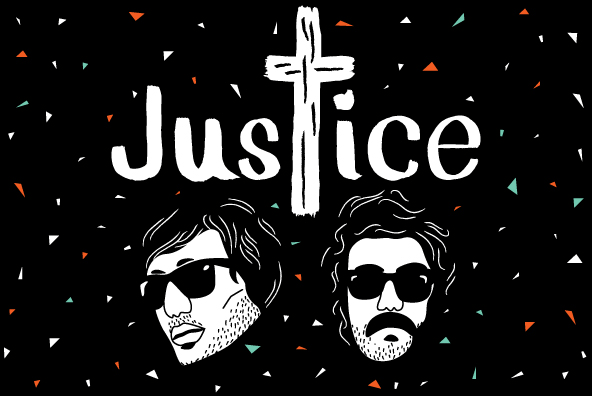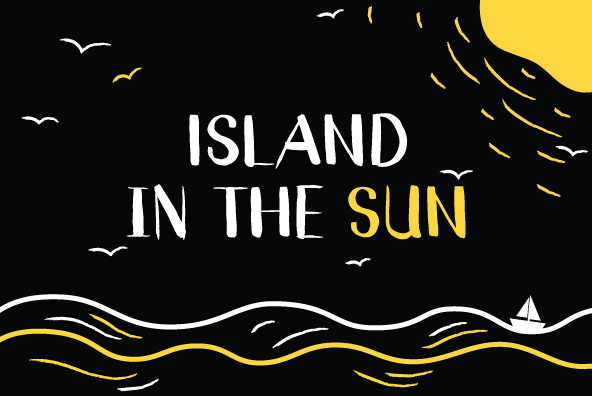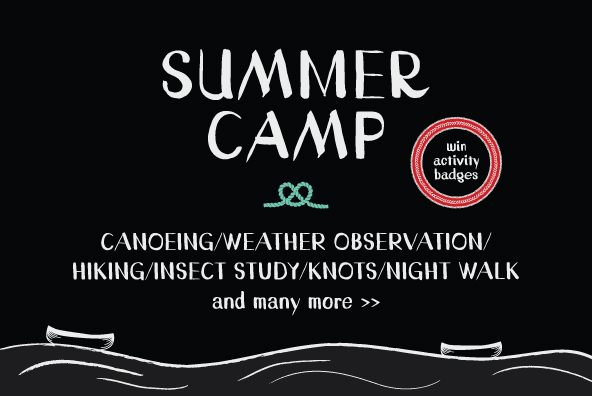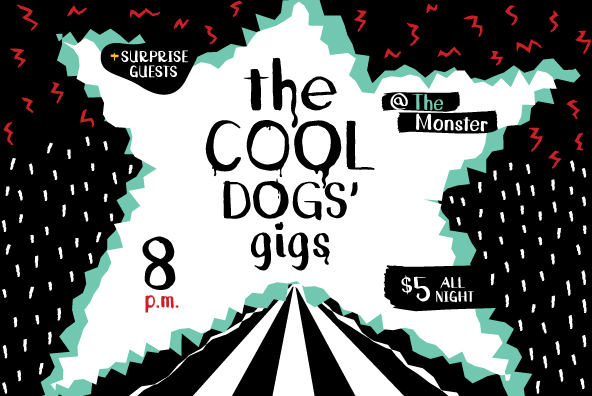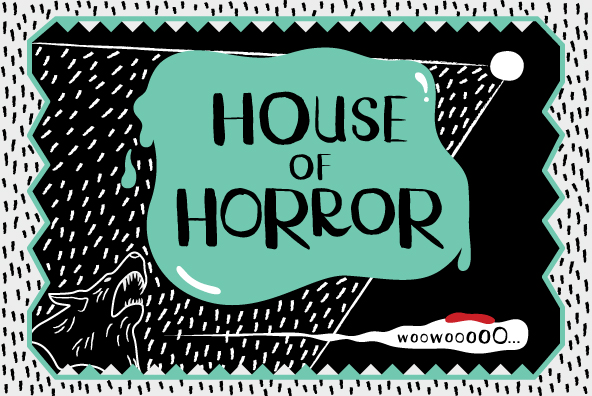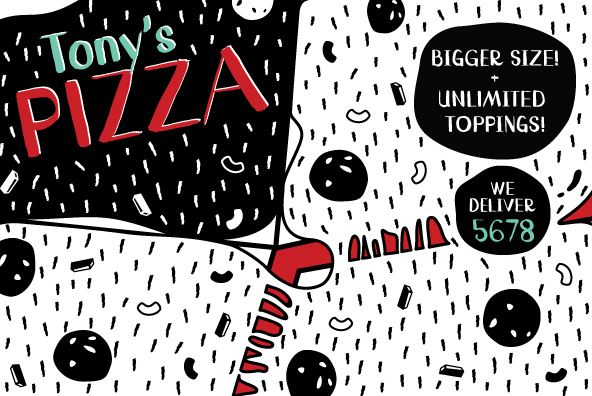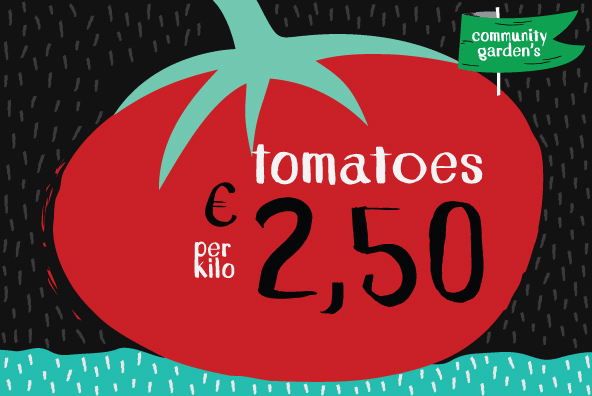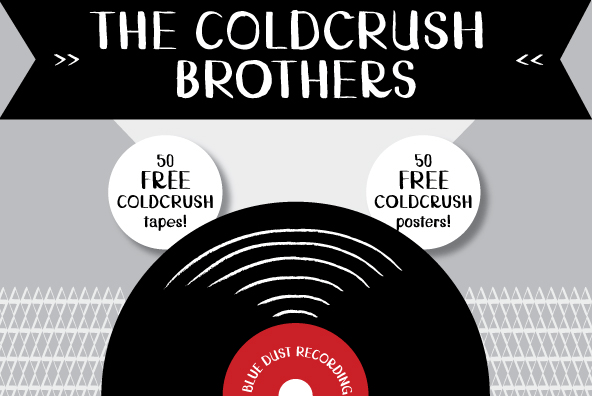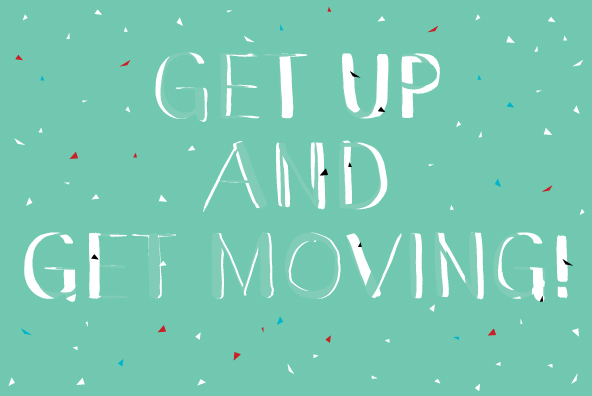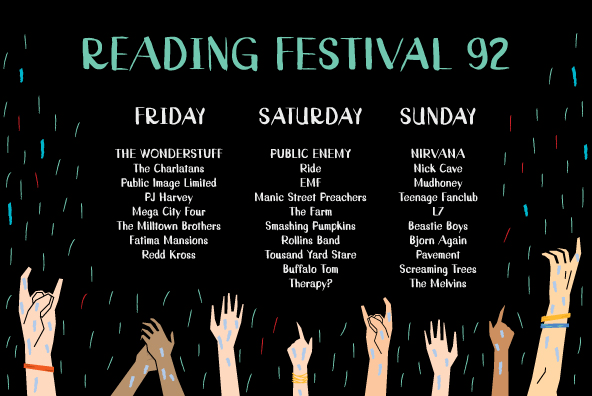
YWFT Filbert
Ridin' down that old country road, a sign appears ahead in the forest... "Cherry Pies, $2." It's good ol' YWFT Filbert bringin' that down-home cheer, with that hand-painted, primitive calligraphic rootin'-tootin' charm that just can't be done any other way. Inspired by folk typography and hand painted signage from the banjo-pickin' back country, YWFT Filbert is just as weird and wonderfully inconsistent as the Appalachian weather. This is a handset conversion, now in OpenType, with 300+ glyphs, and ligatures and stylistic alternates of both uppercase and lowercase.